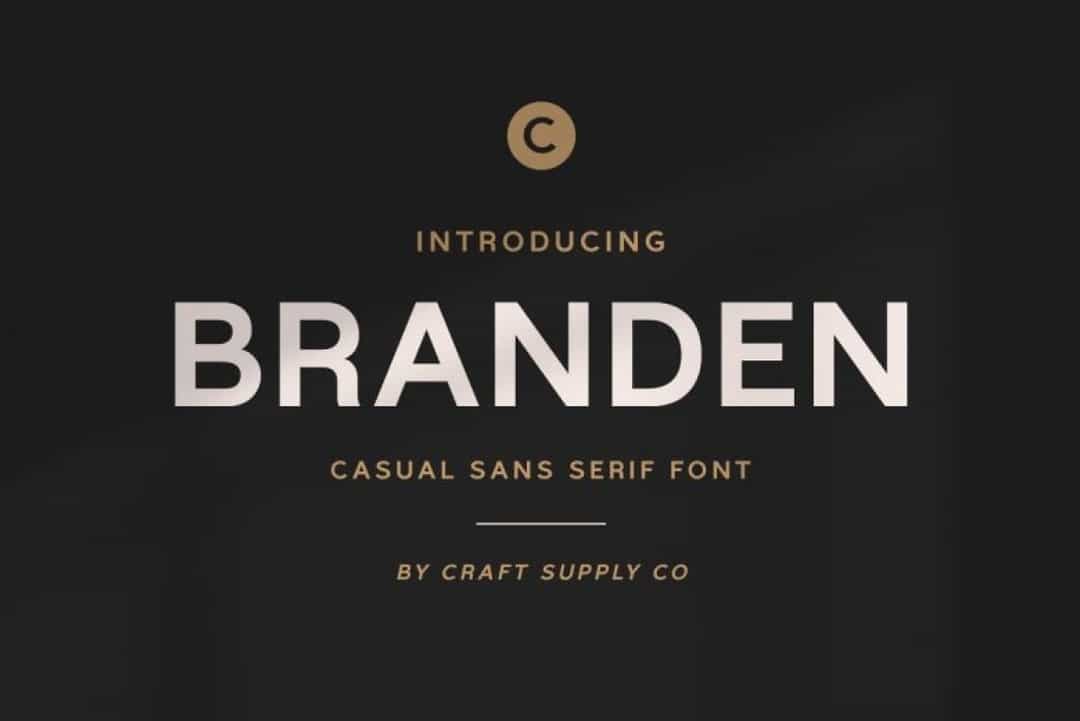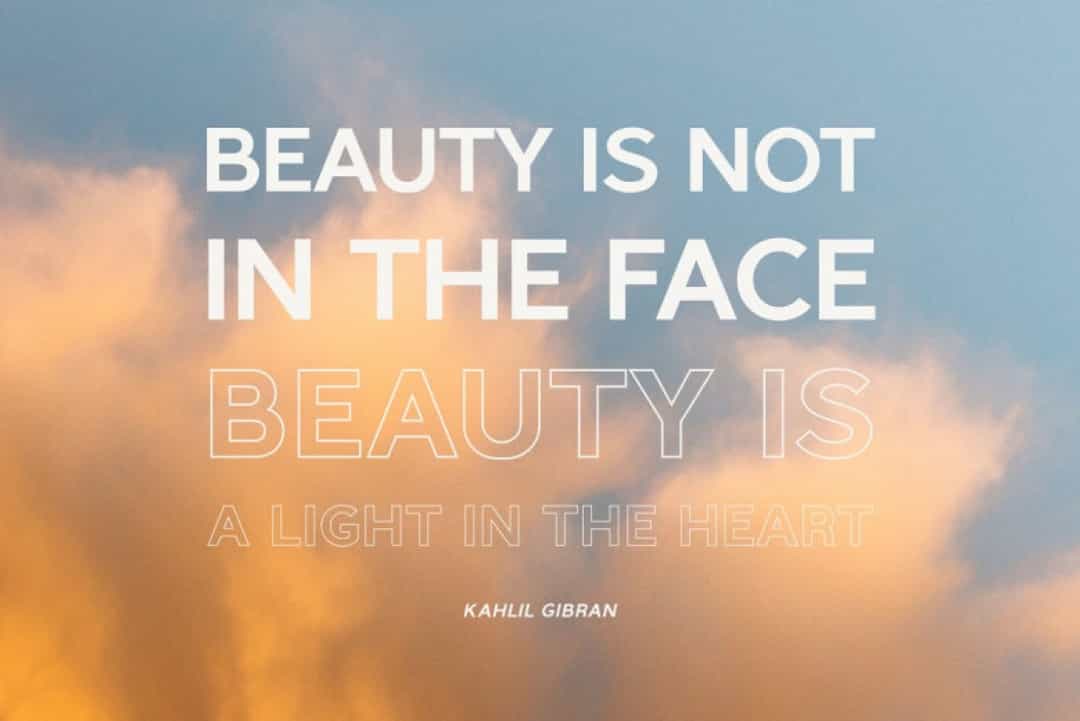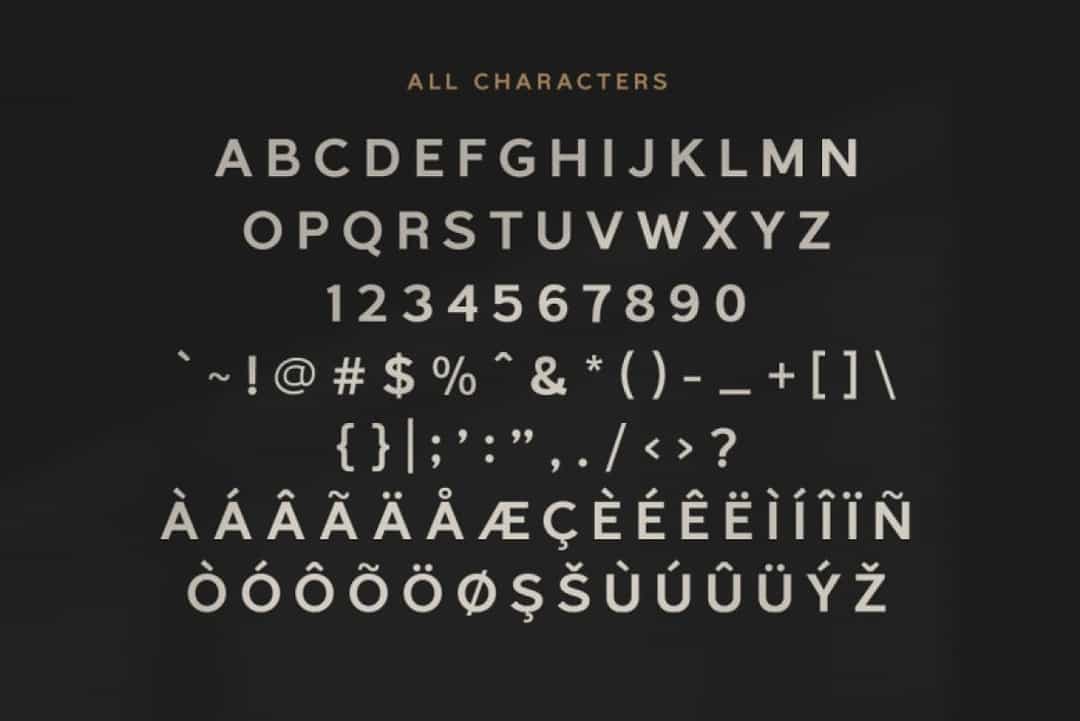
Branden is an informal sans serif font whose style corresponds to that of casual sans serif fonts. What sets Branden apart are its lower contrast strokes and somewhat rectangular designs of round characters as well as its emphasis on businesslike simplicity.